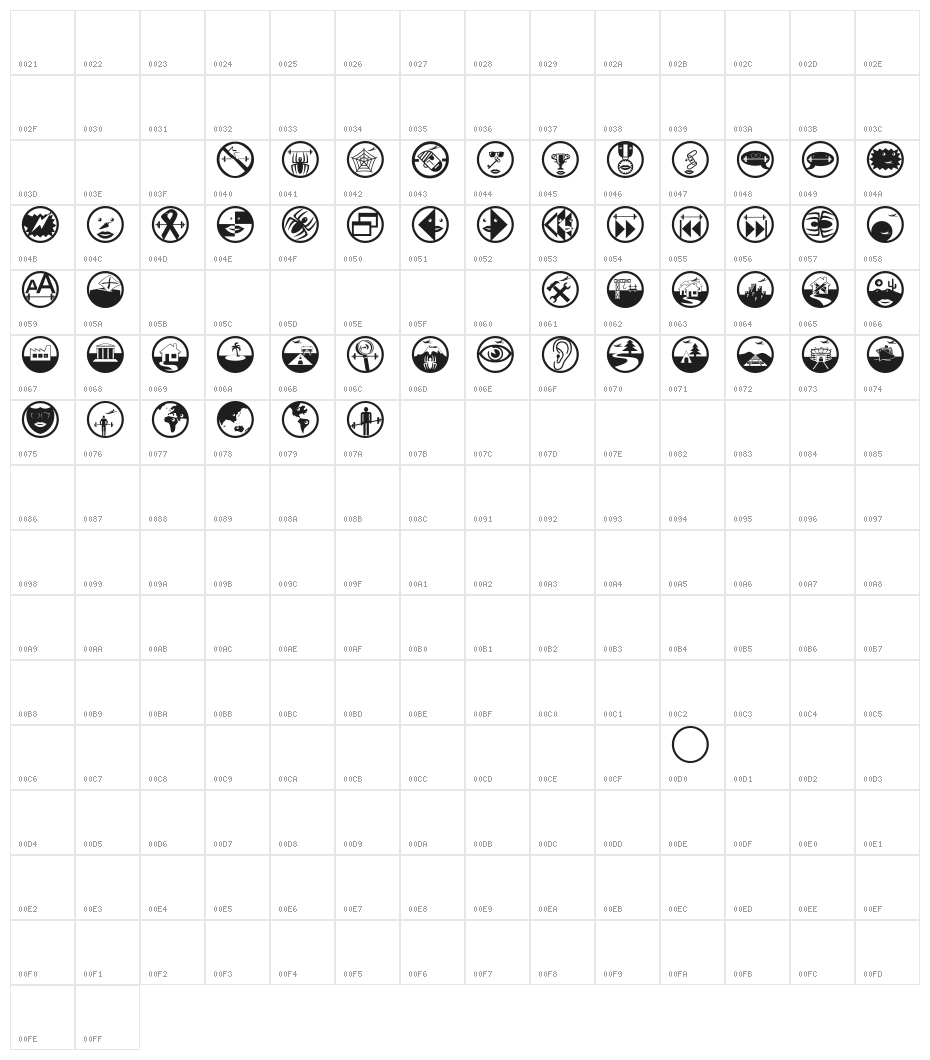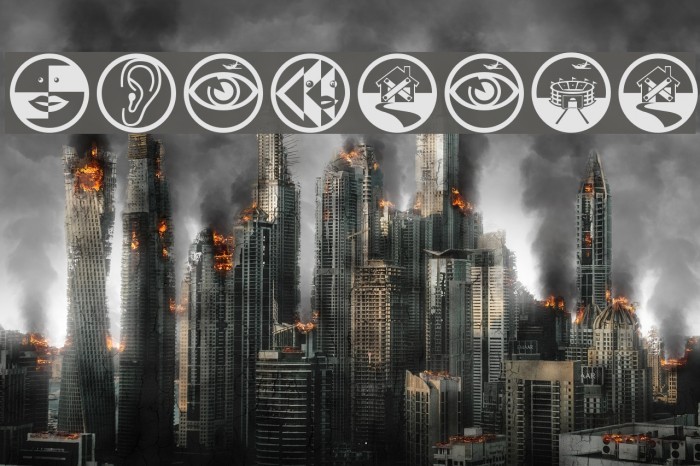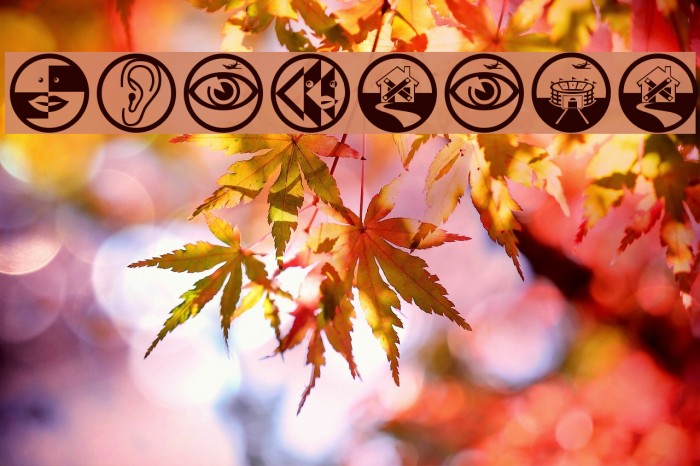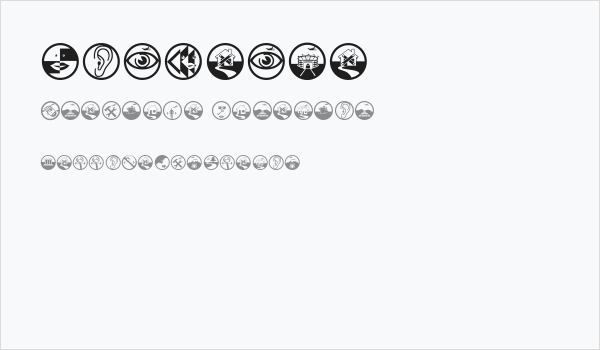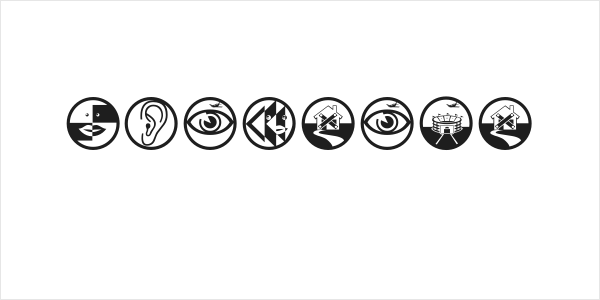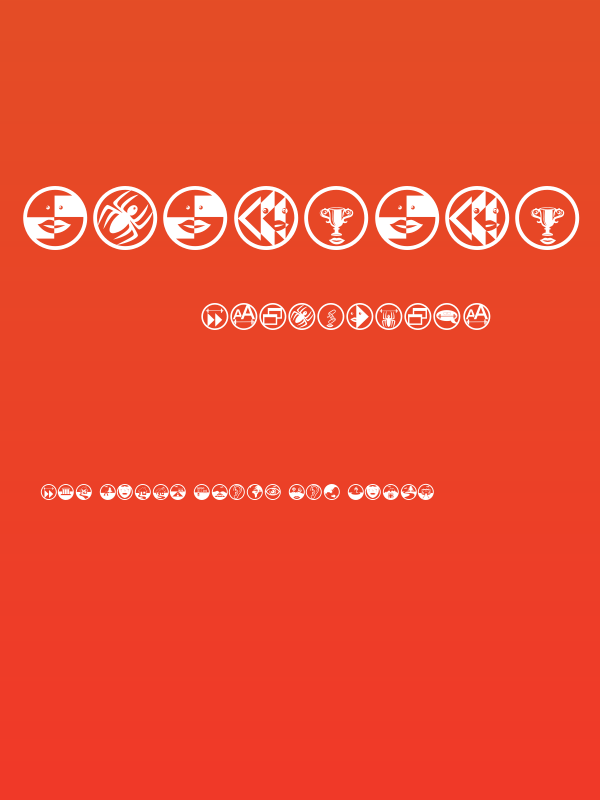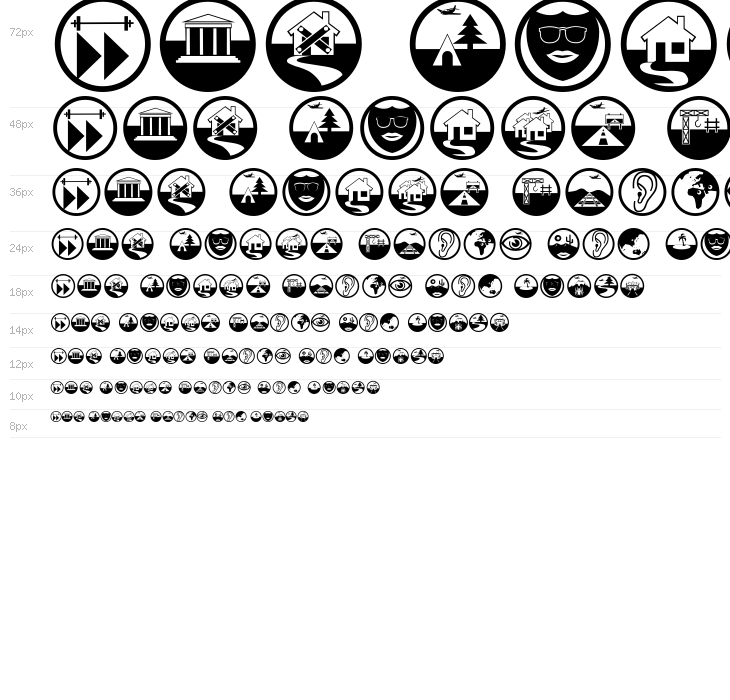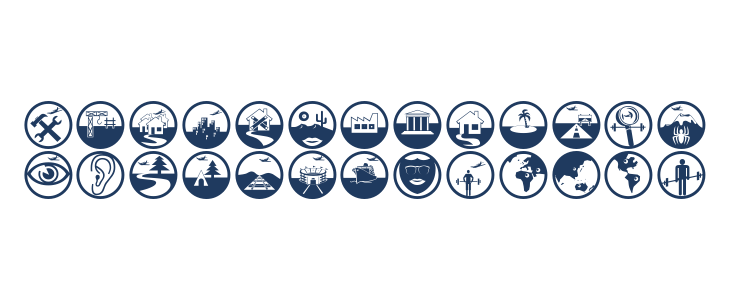
NonSense Font
NonSense Description
A collection of pictogram-style icons enclosed in circles, each representing different objects, concepts, or actions, rendered in a bold, high-contrast black and white style. The icons are highly stylized and abstract, with a consistent circular framing and simplified forms.
| Overall Style | Modern, Decorative |
| Use Case | Icons, Signage, Infographics, Visual Aids |
| Proposed Projects | Infographics, signage, educational materials, wayfinding systems, app iconography, visual communication aids. |